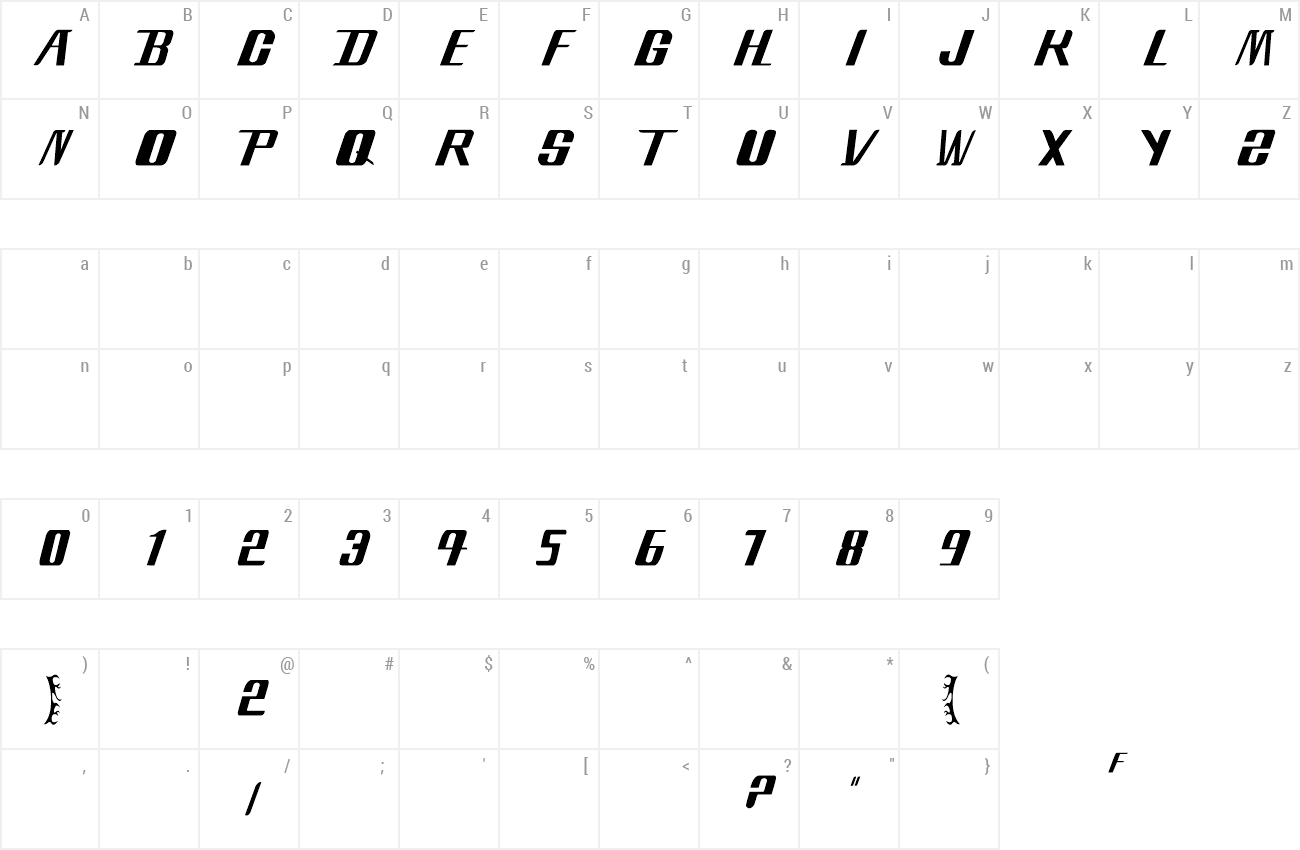
Bleach Logo Font . Every font is free to. Unleash your design potential today! Discover a world of captivating typography for your creative projects. You can also download bleach font for free! The title lettering that appears on the cover artwork is very similar to a font called bleach. Looking for ichigo kurosaki fonts? Click now to create a custom image with your own words that you can download. The font, however, is only available in capital letters and numbers. Try our text generator and create cool graphics for bleach font, then you can save the font image to your pc, mac, linux, ios and android device. You can download the font for free here. The font is free for personal use. Click to find the best 1 free fonts in the ichigo kurosaki style. Explore bleach fonts at myfonts. Free download of bleach font. It was designed and published by danilo belardinelli.
Try our text generator and create cool graphics for bleach font, then you can save the font image to your pc, mac, linux, ios and android device. Click now to create a custom image with your own words that you can download. Free download of bleach font. You can use this font to create stunning designs with our font generator. You can download the font for free here. Explore bleach fonts at myfonts. The font, however, is only available in capital letters and numbers. The title lettering that appears on the cover artwork is very similar to a font called bleach. Every font is free to. Discover a world of captivating typography for your creative projects.
Bleach Logo Font Free download of bleach font. You can also download bleach font for free! You can download the font for free here. Every font is free to. Looking for ichigo kurosaki fonts? Discover a world of captivating typography for your creative projects. Bleach font generator & download is available free at fontbolt. It was designed and published by danilo belardinelli. Free download of bleach font. The title lettering that appears on the cover artwork is very similar to a font called bleach. Explore bleach fonts at myfonts. You can use this font to create stunning designs with our font generator. Unleash your design potential today! Try our text generator and create cool graphics for bleach font, then you can save the font image to your pc, mac, linux, ios and android device. Click to find the best 1 free fonts in the ichigo kurosaki style. Click now to create a custom image with your own words that you can download.
Bleach Logo Wallpapers Top Free Bleach Logo Backgrounds WallpaperAccess Bleach Logo Font Explore bleach fonts at myfonts. Unleash your design potential today! Bleach font generator & download is available free at fontbolt. You can also download bleach font for free! Discover a world of captivating typography for your creative projects. It was designed and published by danilo belardinelli. You can use this font to create stunning designs with our font generator. Click. Bleach Logo Font.
Bleach Font Different Fonts Bleach Logo Font You can also download bleach font for free! The title lettering that appears on the cover artwork is very similar to a font called bleach. Try our text generator and create cool graphics for bleach font, then you can save the font image to your pc, mac, linux, ios and android device. Explore bleach fonts at myfonts. Bleach font generator. Bleach Logo Font.
Bleach Logo Download png Bleach Logo Font You can use this font to create stunning designs with our font generator. Looking for ichigo kurosaki fonts? The font, however, is only available in capital letters and numbers. You can also download bleach font for free! The title lettering that appears on the cover artwork is very similar to a font called bleach. Try our text generator and create. Bleach Logo Font.
Bleach Anime Logo Bleach Logo Font It was designed and published by danilo belardinelli. Try our text generator and create cool graphics for bleach font, then you can save the font image to your pc, mac, linux, ios and android device. You can also download bleach font for free! You can use this font to create stunning designs with our font generator. Bleach font generator &. Bleach Logo Font.